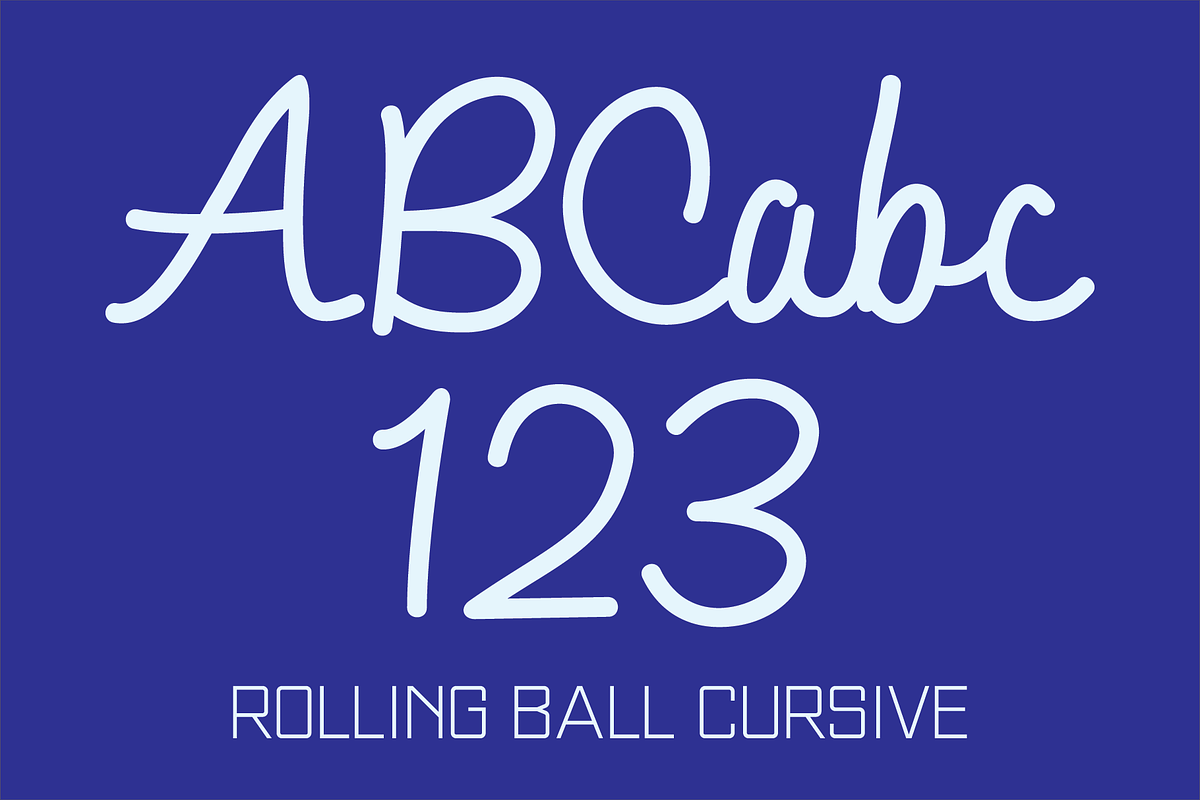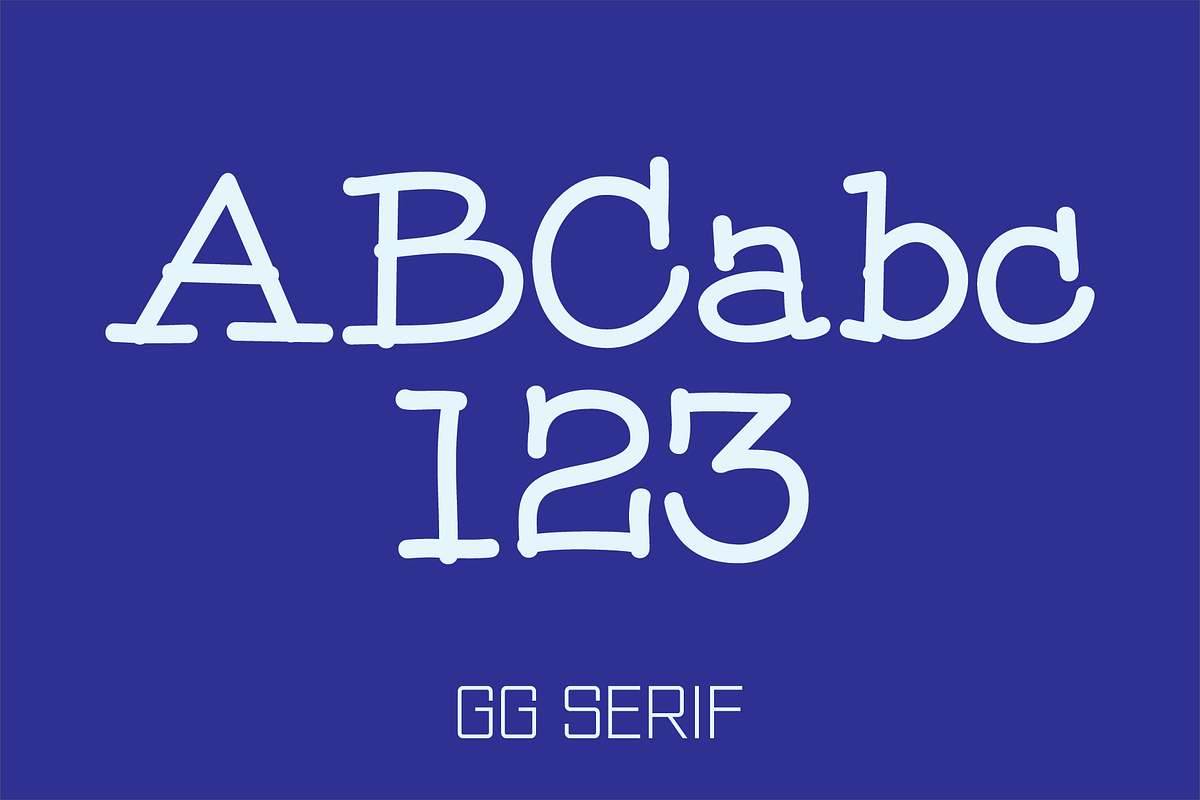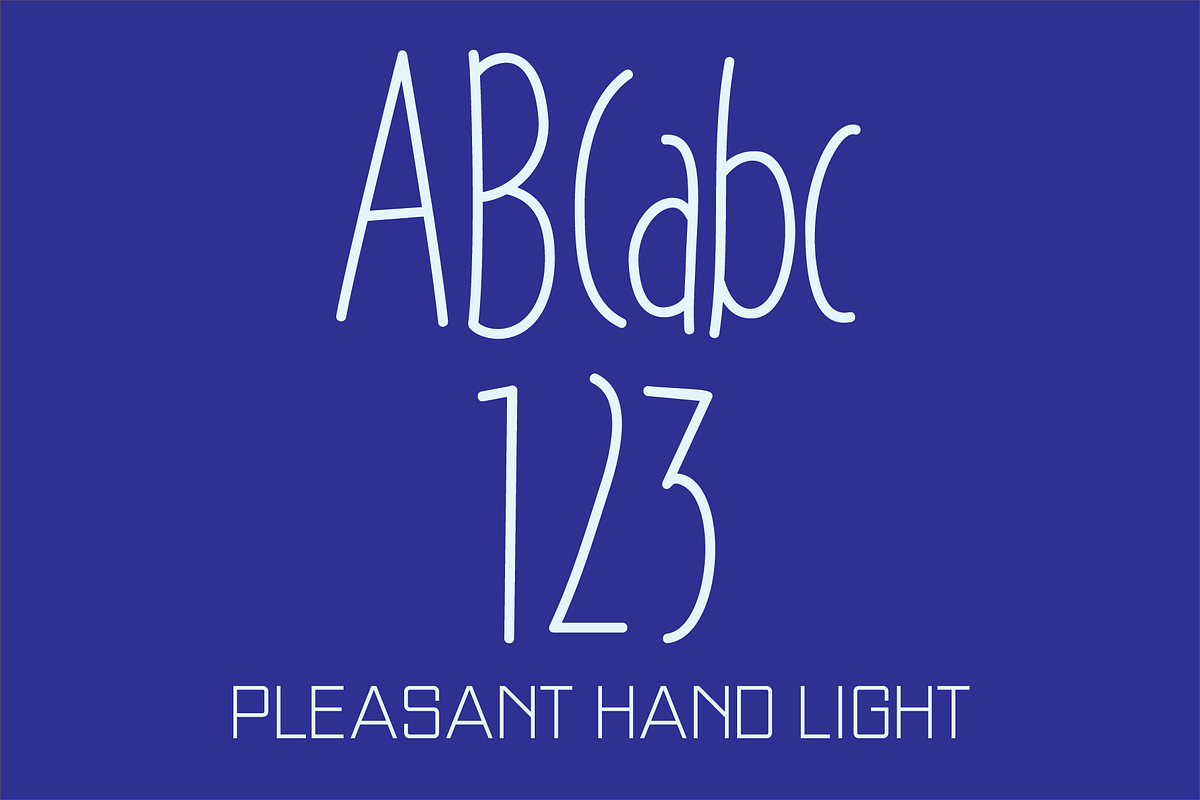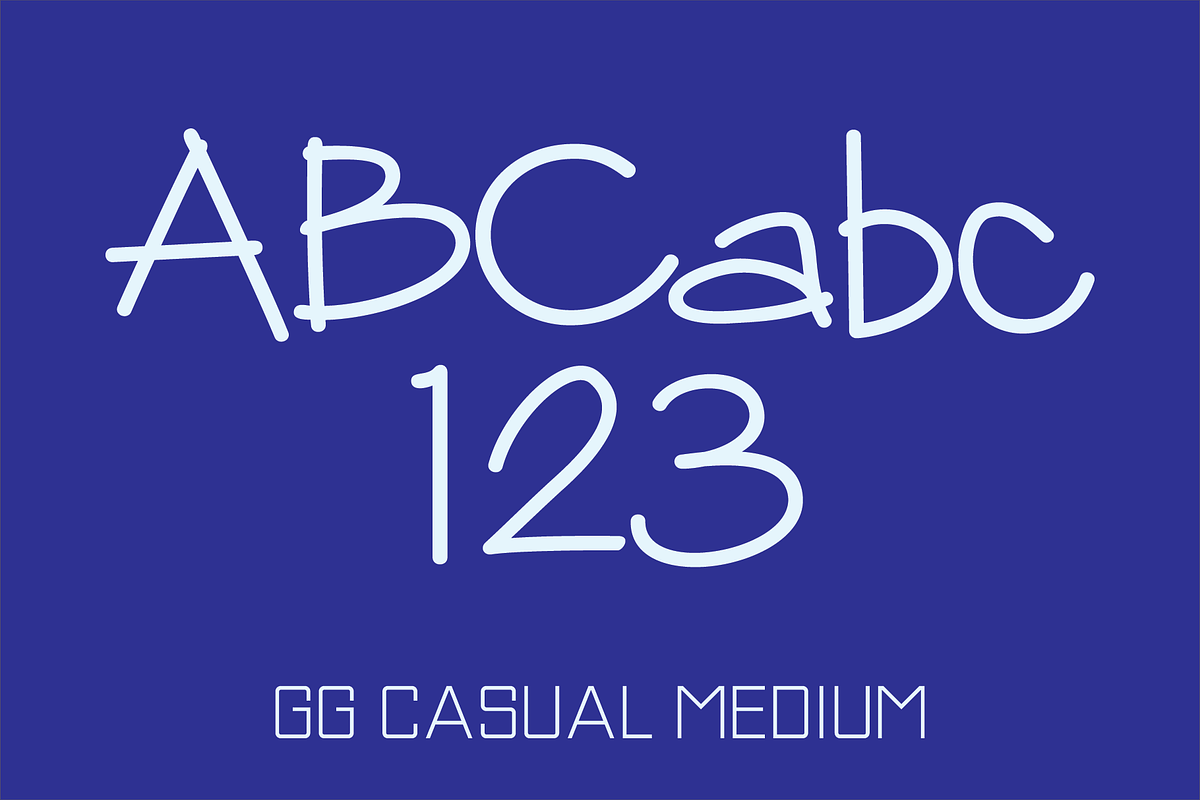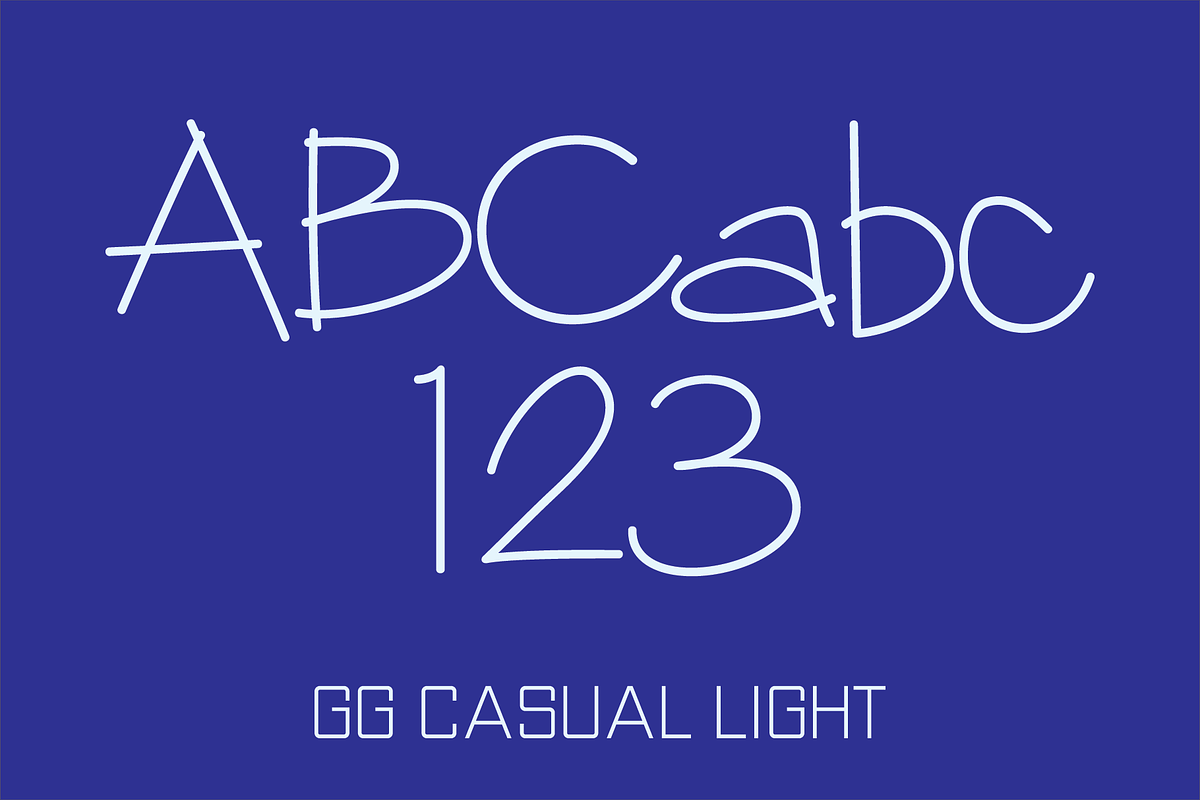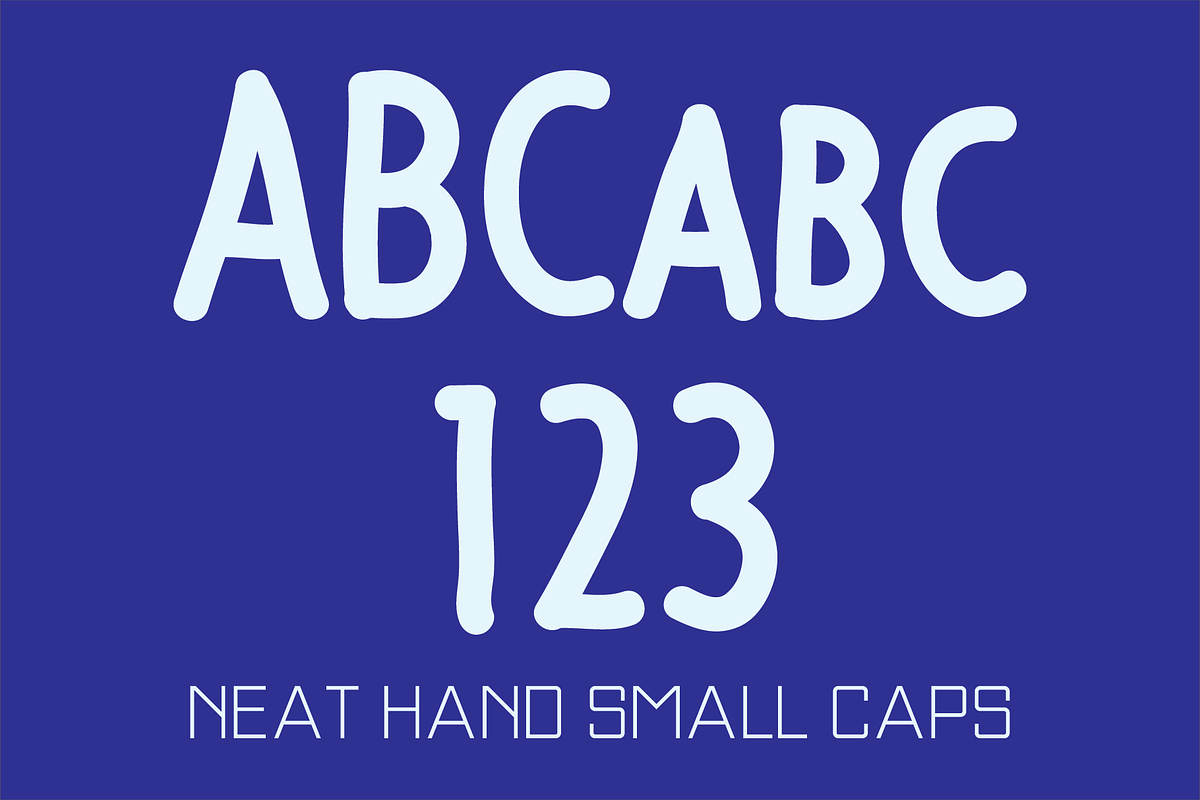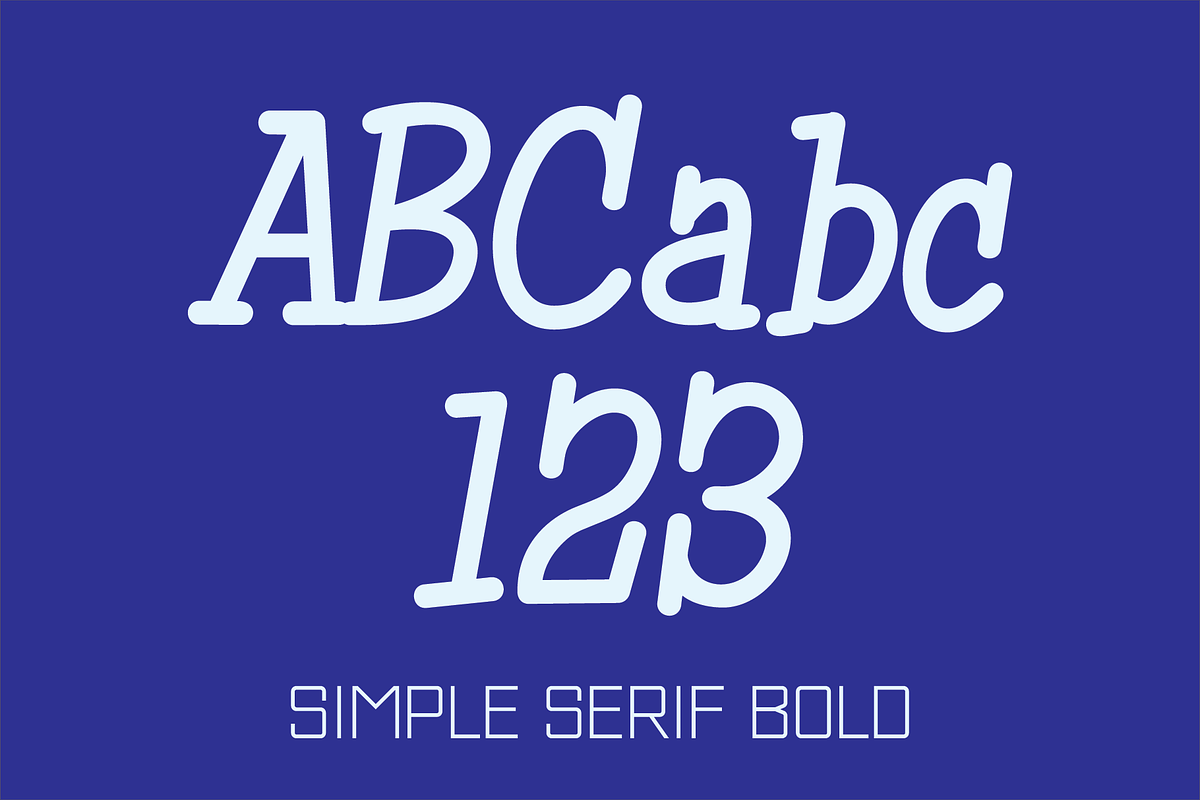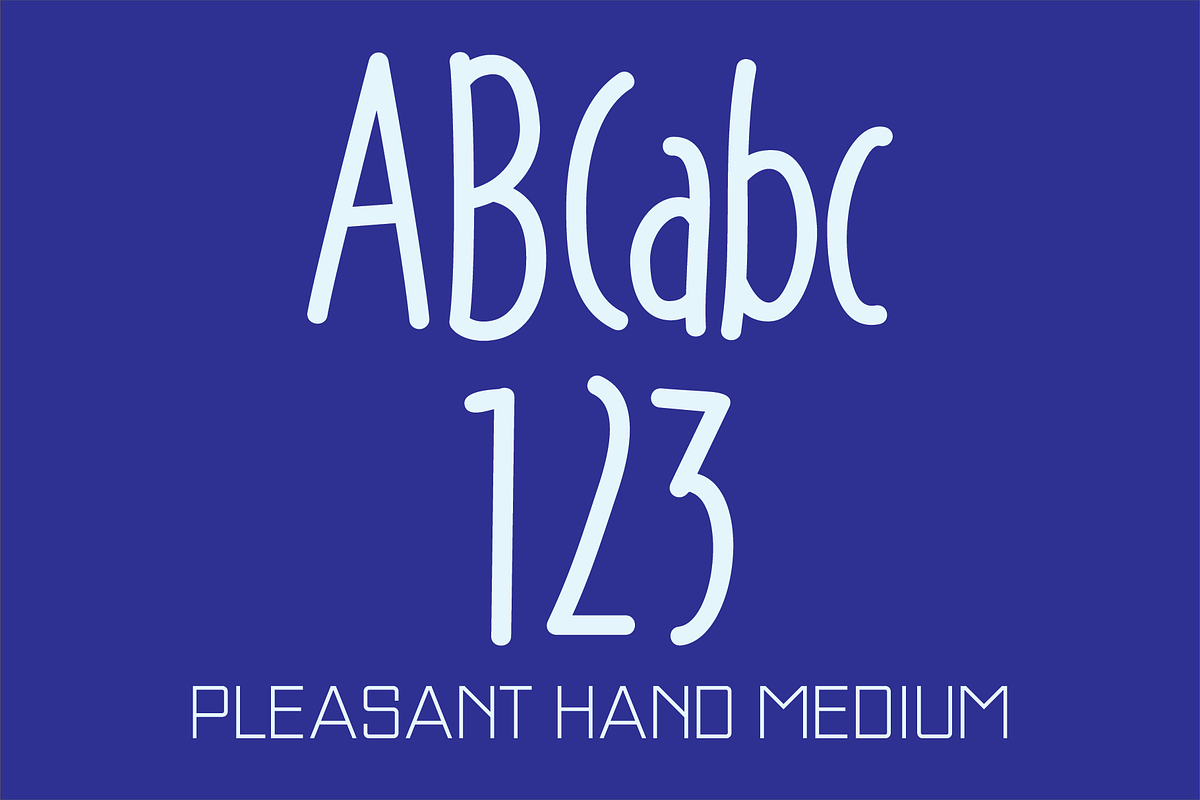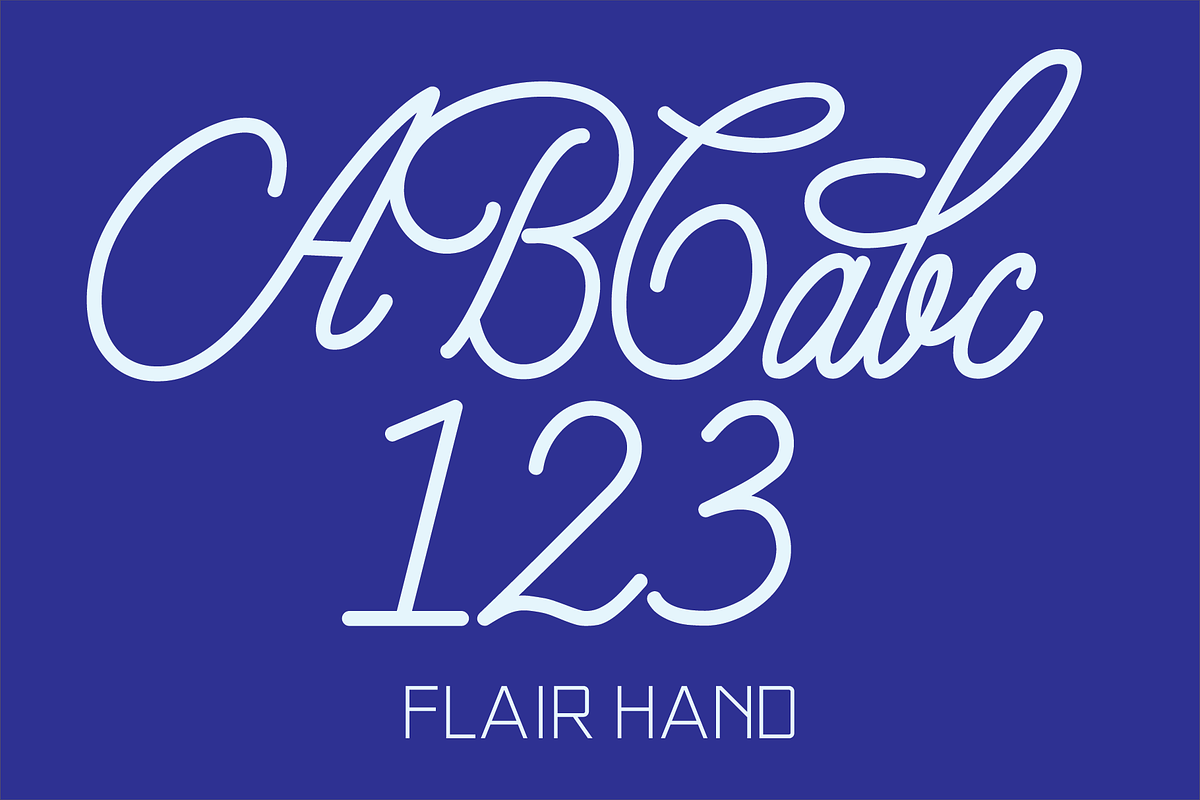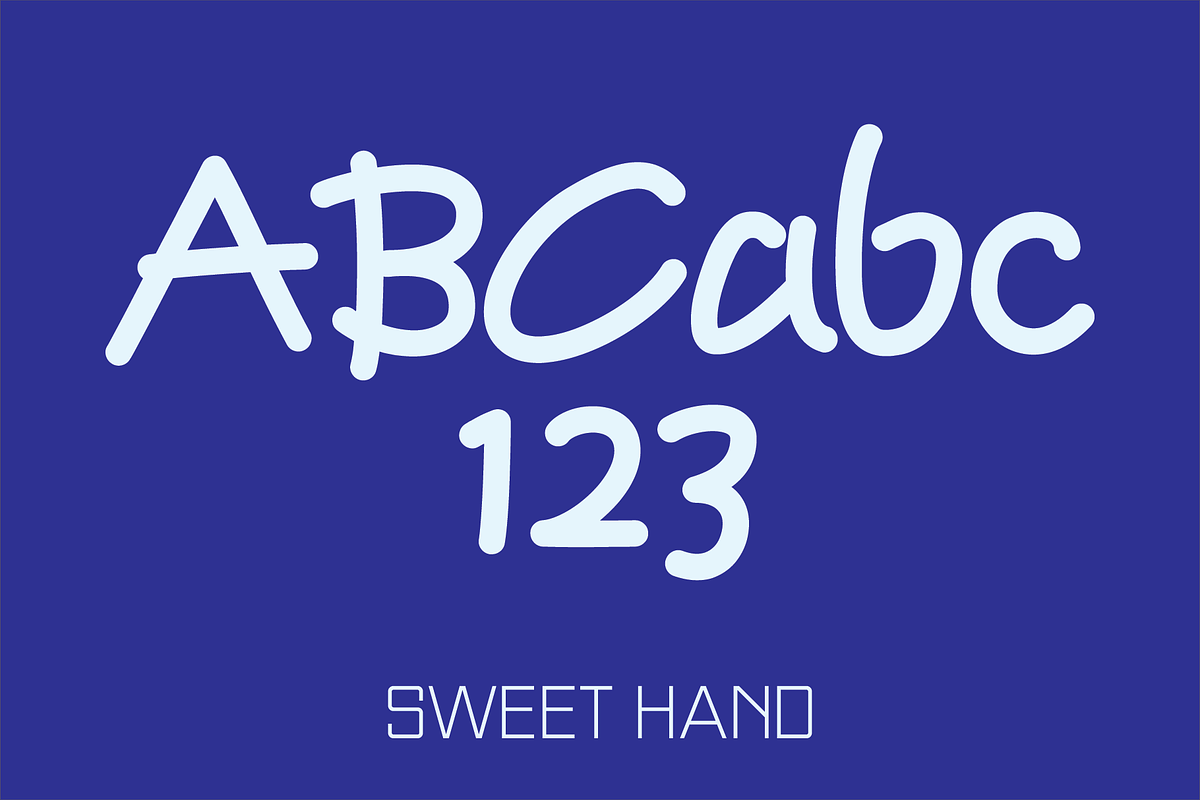
Hand Lettered Fonts Collection
Charisma was inspired by the hand lettering used by draftsmen and architects. It is casual and informal and is ideal for use in conveying these qualities. It is excellent for casual text and at large sizes an effective casual display font. The font includes upper and lowercase alphabets, numbers, punctuation, accented characters, symbols, and miscellaneous characters.
The Fast Hand fonts were inspired by casual, neat hand lettering. They are casual and informal and ideal for use in conveying these qualities. They are excellent for casual text and at large sizes an effective casual display font. Both fonts have the same uppercase alphabet, numbers, punctuation, accented characters, symbols, and miscellaneous characters. As their names imply Fast Hand Lower Case has a lowercase alphabet while Fast Hand Small Caps has small caps in place of the lowercase alphabet.
Flair Hand is a pleasing hand-lettered cursive font with uppercase and lowercase alphabets, numbers, punctuation, symbols, and miscellaneous characters. The ascenders and descenders of the lowercase alphabet have exaggerated loops that add a unique flair to any message. The exaggerated-looped characters have alternate characters without loops for use where a looped character is not appropriate or desired. Flair Hand is ideal for headlines, titles, branding, small blocks of text or wherever a fresh cursive font with flair is desirable.
The GG Casual fonts are based on a hand lettering style of designer Gerald Gallo. The family is casual and informal and is ideal for use in conveying these qualities. The fonts have upper and lowercase alphabets, numbers, punctuation, accented characters, symbols, and miscellaneous characters.
GG Serif is based on a hand lettering style of designer Gerald Gallo. It is casual and informal and ideal for use in conveying these qualities. It is excellent for casual text and at large sizes an effective casual display font. The font includes upper and lowercase alphabets, numbers, punctuation, accented characters, symbols, and miscellaneous characters.
Hasty Hand is a hand-lettered sans serif font whose appearance suggests that it is the work of someone who writes in haste. The font has an uppercase and lowercase alphabet, numbers, punctuation, symbols, and miscellaneous characters. Hasty Hand is ideal for use where a very casual feel is desired.
Neat Hand is a neat hand-lettered sans serif font set. As their names imply Neat Hand Lower Case has a lowercase alphabet while Neat Hand Small Caps has small caps in place of the lowercase alphabet. Both fonts have the same uppercase alphabet, numbers, punctuation, symbols, and miscellaneous characters. The Neat Hand fonts are ideal for use where a neat but casual feel is desirable.
The Pleasant Hand fonts were designed as condensed hand-lettered fonts. The family is casual and informal and is ideal for use in conveying these qualities. The fonts have upper and lowercase alphabets, numbers, punctuation, accented characters, symbols, and miscellaneous characters.
Rolling Ball Cursive simulates a handwritten style executed with one of the many types of rolling ball pens. The font has upper and lowercase alphabets, numbers, punctuation, accented characters, symbols, and miscellaneous characters.
The Simple Serif fonts were designed as hand-lettered serif fonts. They are casual and informal and are ideal for use in conveying these qualities. The fonts have upper and lowercase alphabets, numbers, punctuation, accented characters, symbols, and miscellaneous characters.
Sweet Hand was inspired by casual, neat hand lettering. It is casual and informal and is ideal for use in conveying these qualities. It is excellent for casual text and at large sizes an effective casual display font. The font includes upper and lowercase alphabets, numbers, punctuation, accented characters, symbols, and miscellaneous characters.
Tight Hand is a hand-lettered serif font set. Tight Hand Regular is vertical while Tight Hand Oblique is the oblique version. Both fonts have the same uppercase and small caps alphabet, numbers, accented characters, punctuation, symbols, and miscellaneous characters. The Tight Hand fonts are ideal for use where a casual, loose feel is desirable.